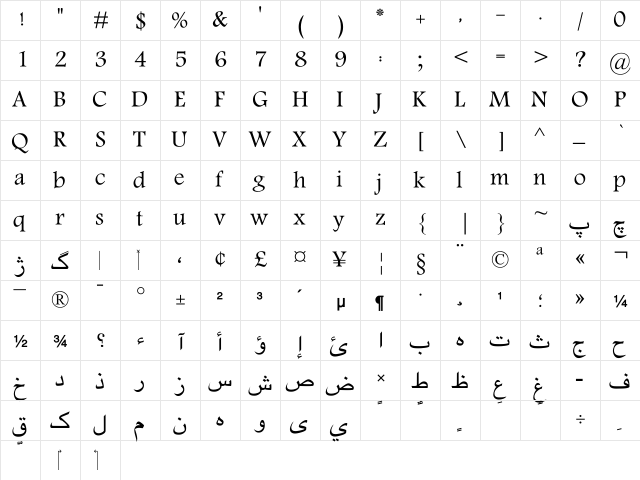
AGT Zaranj Regular
| Designer | Ahmad Gul Totakhyl |
Design Context for AGT Zaranj Typeface
AGT Zaranj is a composed and adaptable typeface that performs quietly and consistently across a wide range of design contexts.